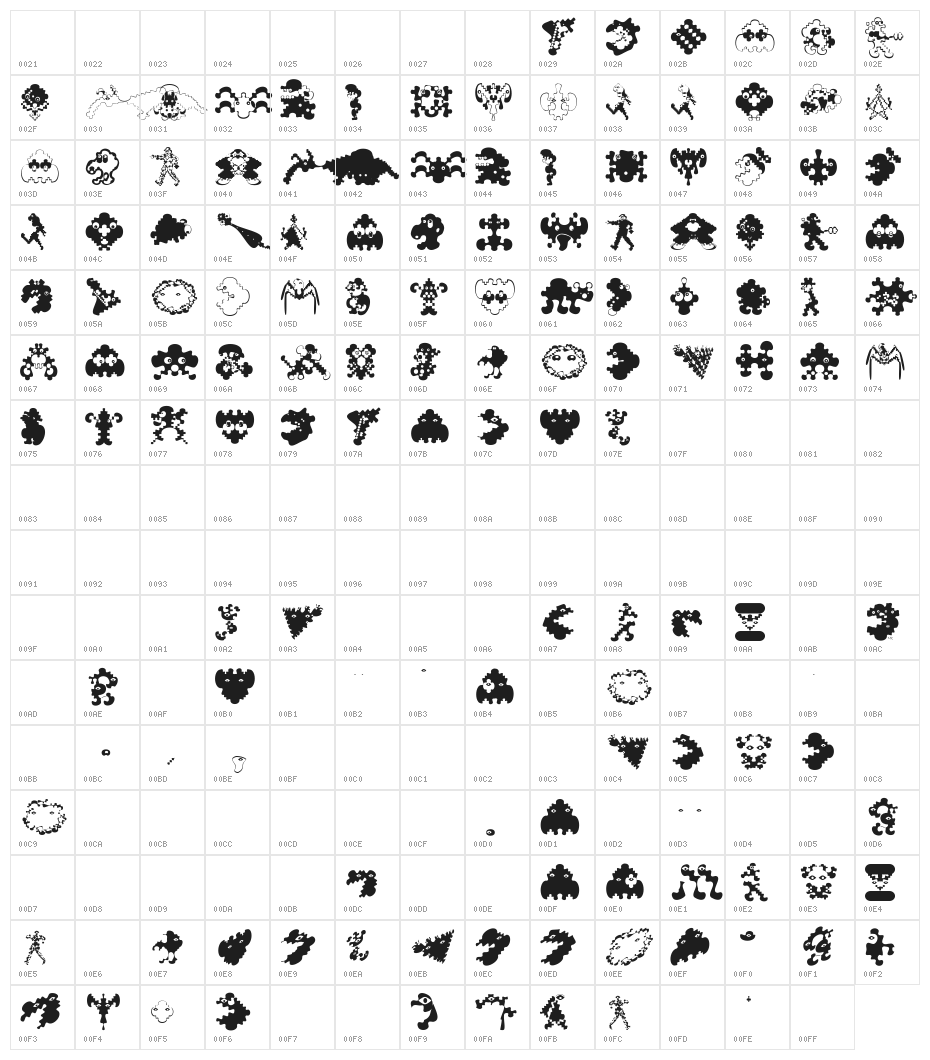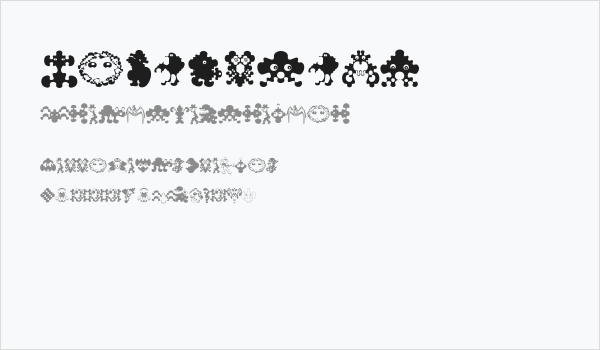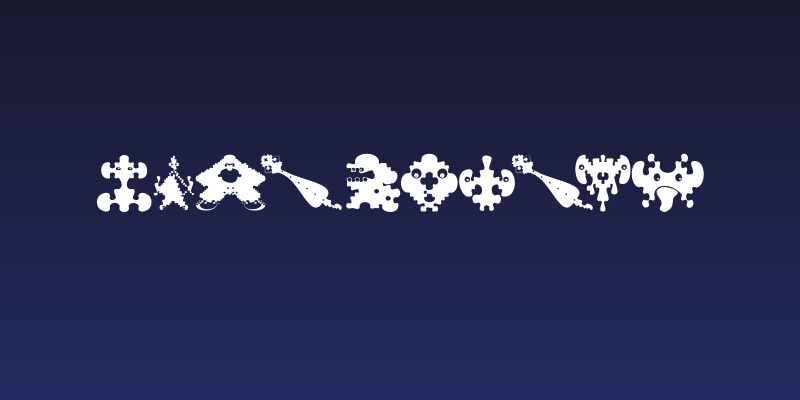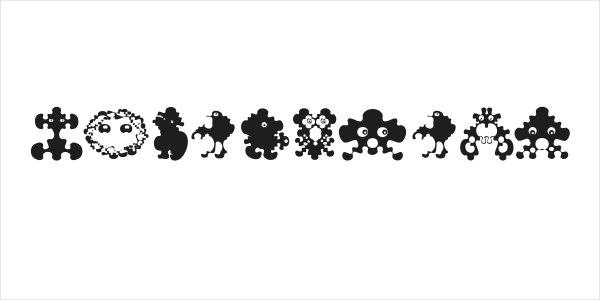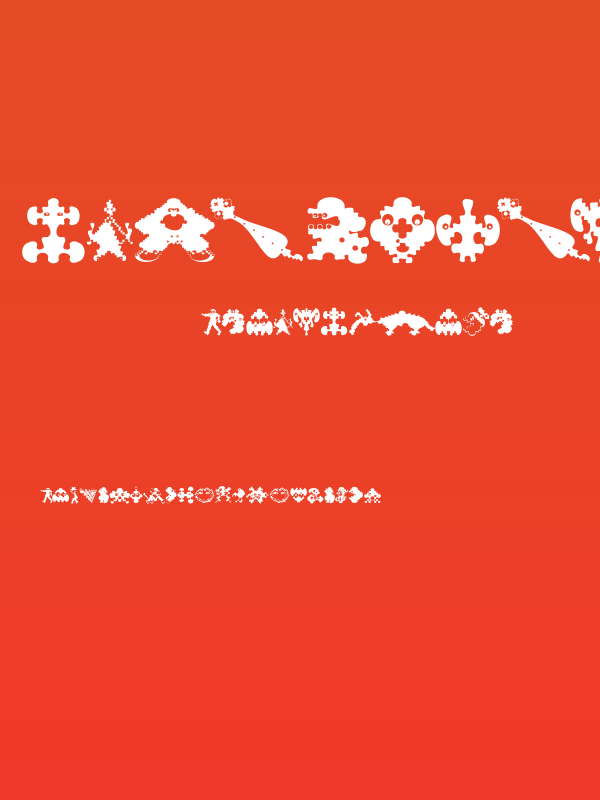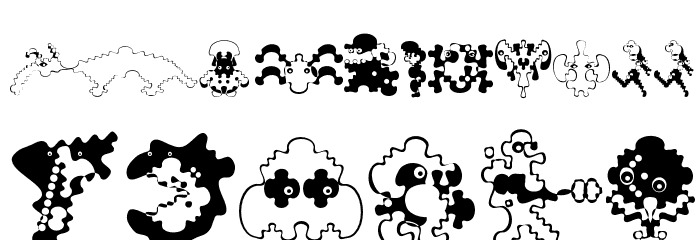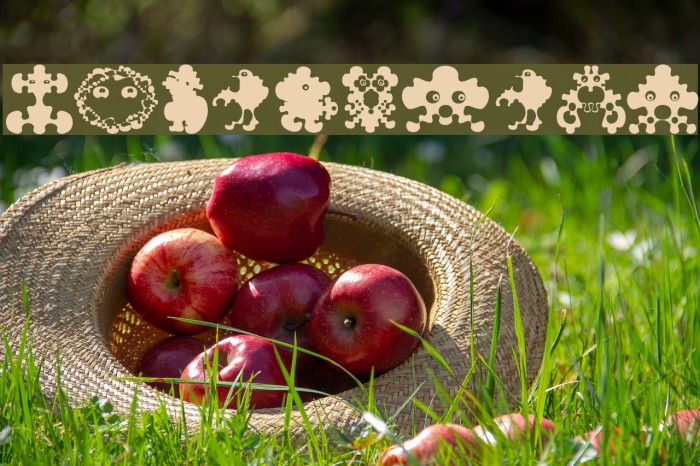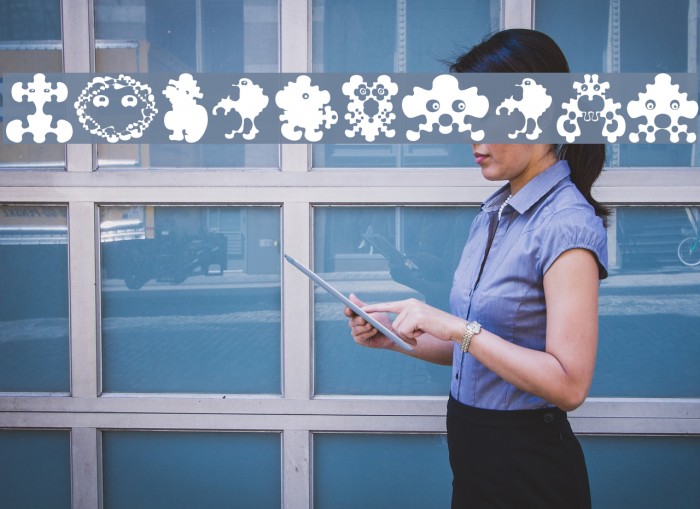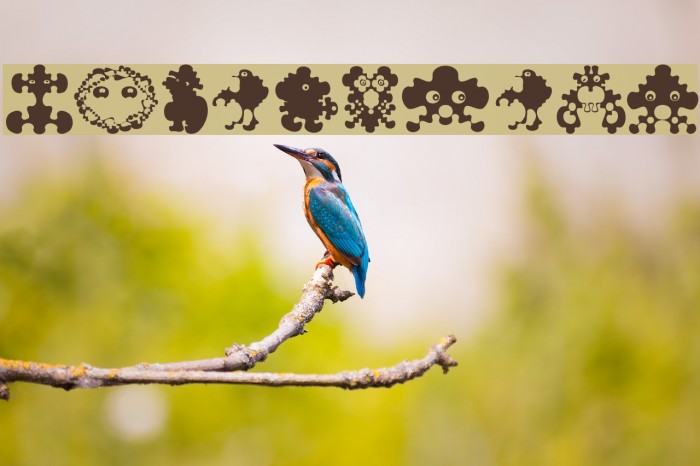
Roundlings Font
Roundlings Description
This font features a highly decorative and playful style, characterized by its whimsical and abstract shapes. Each character is uniquely crafted with intricate details, resembling a fusion of organic and geometric forms. The bold and exaggerated curves give it a cartoonish and lively appearance, making it stand out as a display typeface. The font's design is reminiscent of abstract art, with each letterform appearing as a unique piece of artwork. The characters are densely packed with details, creating a visually rich texture that captures attention. This font is not suitable for body text due to its complexity but excels in creative and artistic applications.